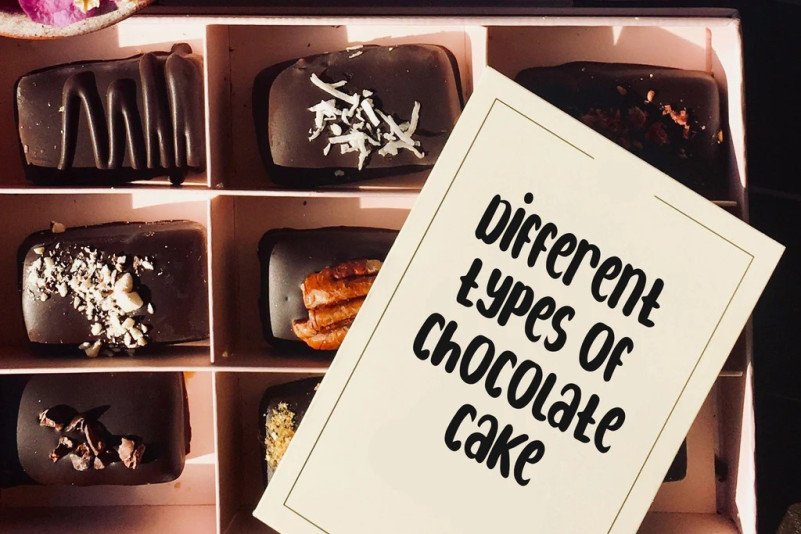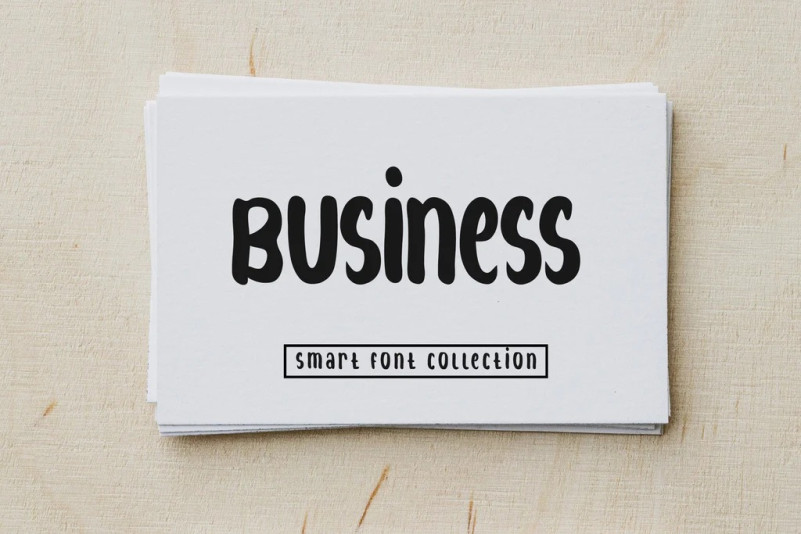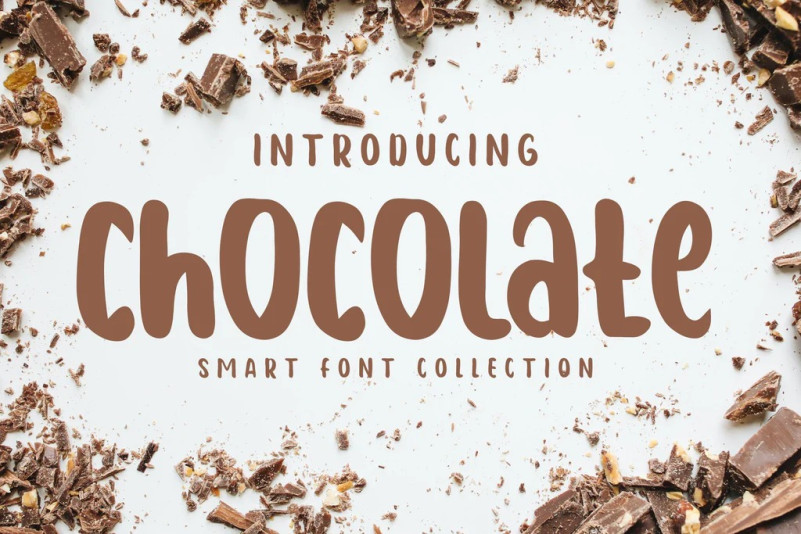
Chocolate Font
Chocolate Font is a beautiful and bold handwritten font made to give a stylish touch to your headlines and logotype. Its natural and unique style makes it perfect for creating various design ideas and other creative projects. This font is perfect for logos, stationary, social media. post, branding, and more